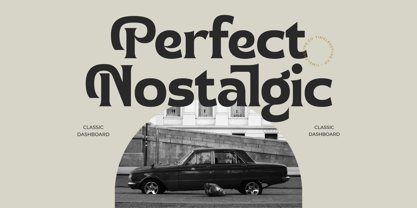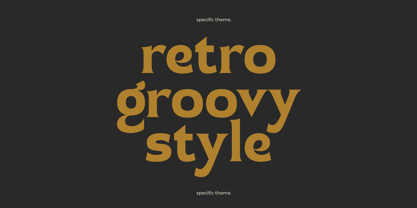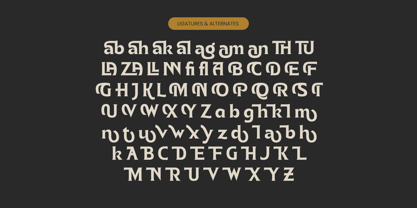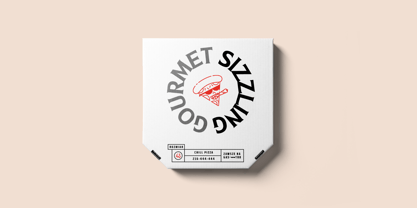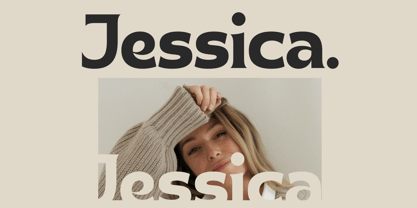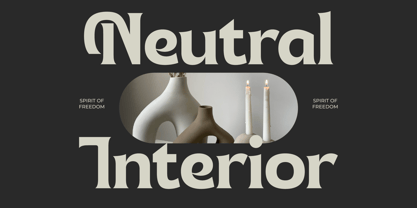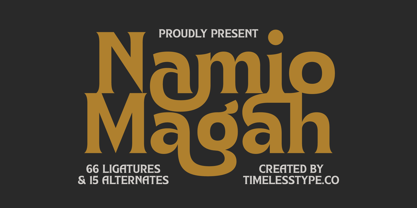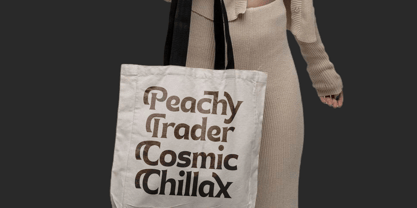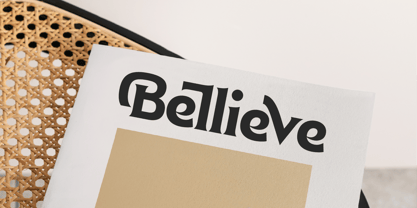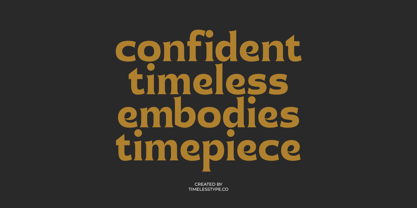
Namio Magah
Namio Magah - Modern Display Serif , from Timelesstype, Suitable for any projects such as: logos, branding projects, homeware designs, product packaging, mugs, quotes, posters, shopping bags, t-shirts, book covers, name card, invitation cards, greeting cards, label, photography, watermark, special events, and all your other luxury and beautiful projects that need a Luxury Serif taste.